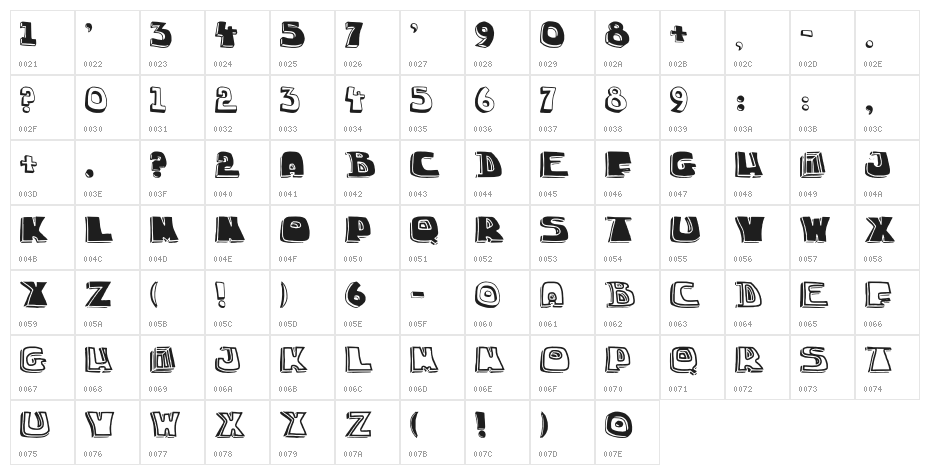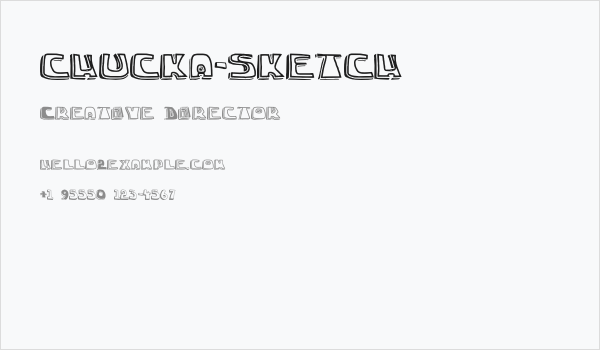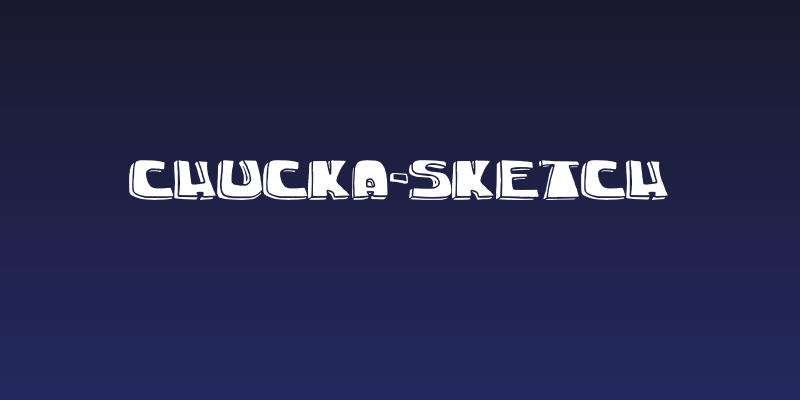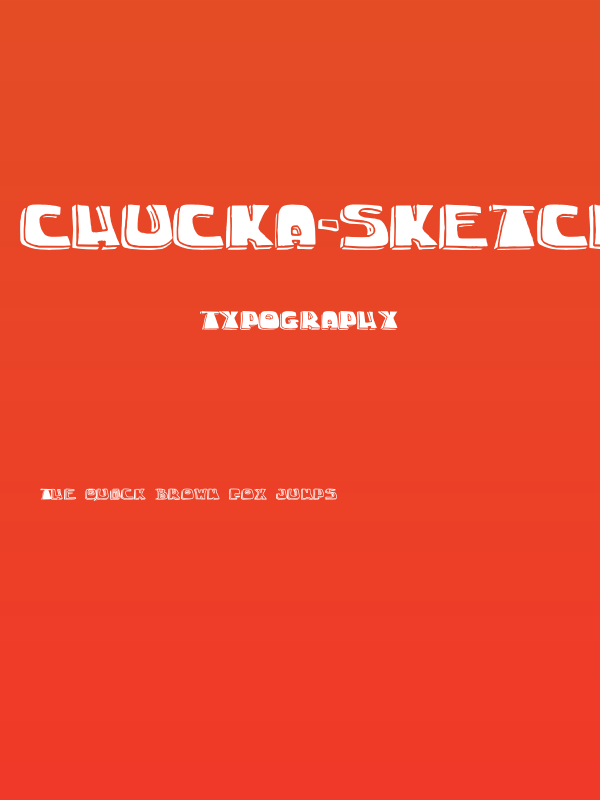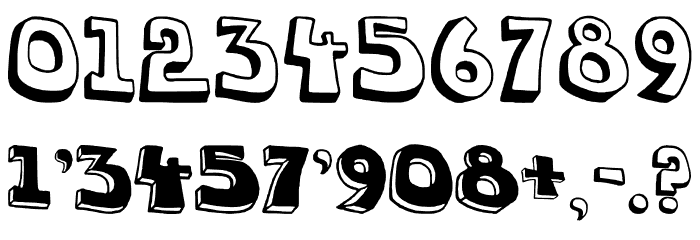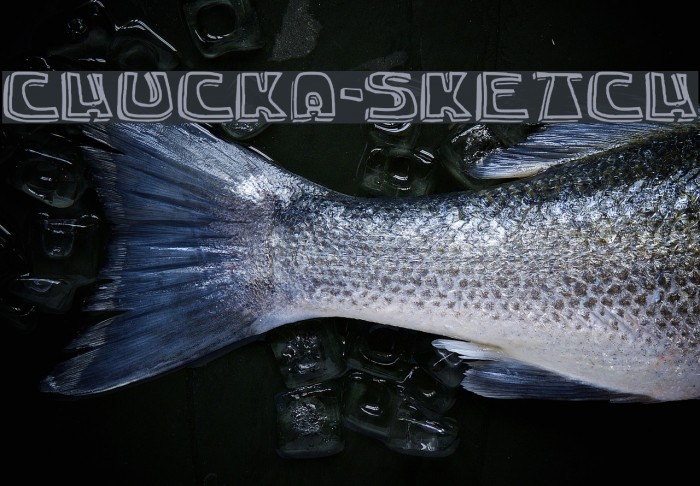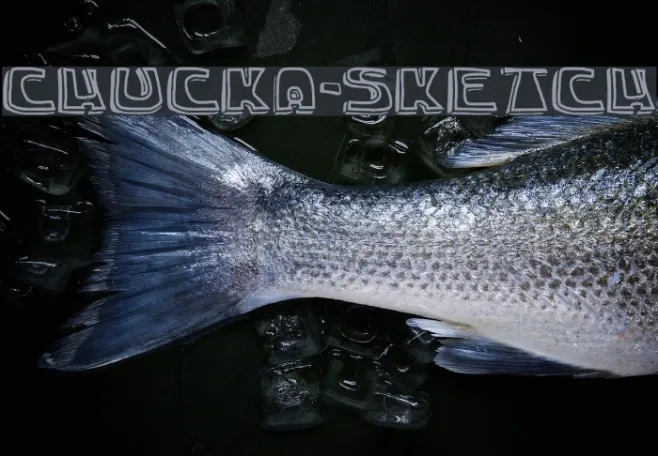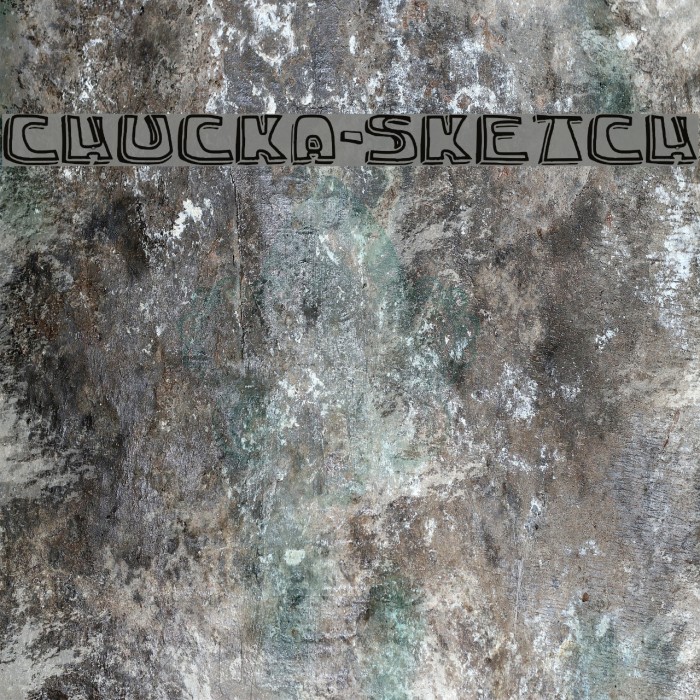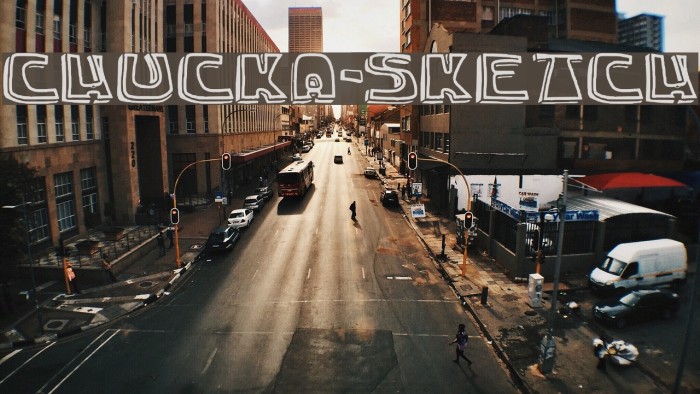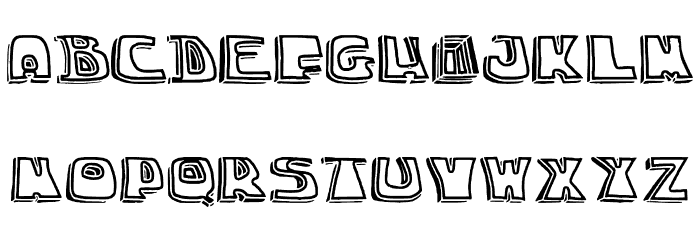
This font features a playful and sketch-like appearance, characterized by its bold and irregular strokes that mimic a hand-drawn style. The letters are outlined with a thick, uneven line, giving them a three-dimensional effect. Each character appears to have been drawn with a marker, adding to its casual and artistic vibe. The numbers and special characters follow the same design principles, maintaining consistency throughout the set. This font exudes a sense of creativity and spontaneity, making it ideal for projects that require a fun and informal touch.
| Proposed Projects | Ideal for children's book covers, playful posters, comic strips, and creative branding. |